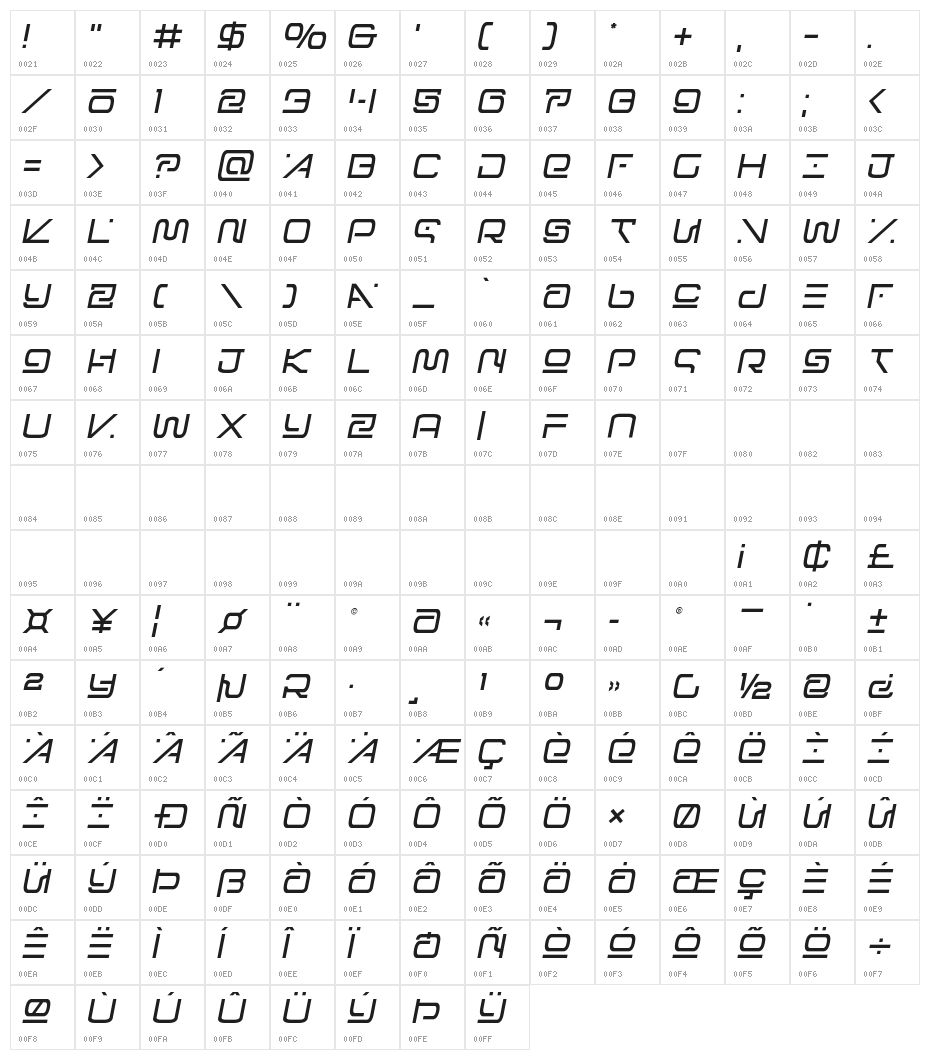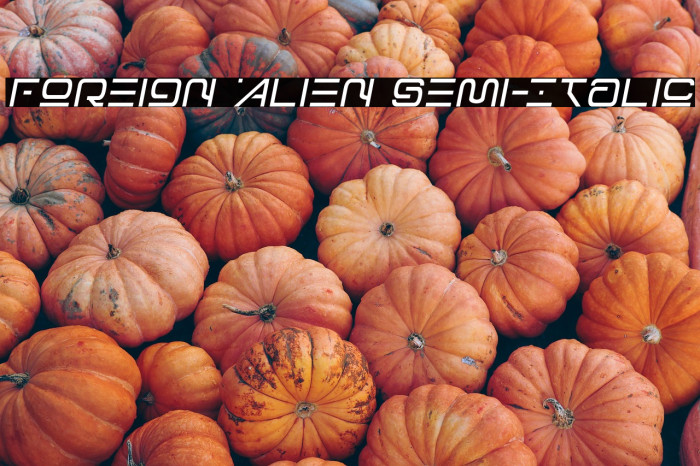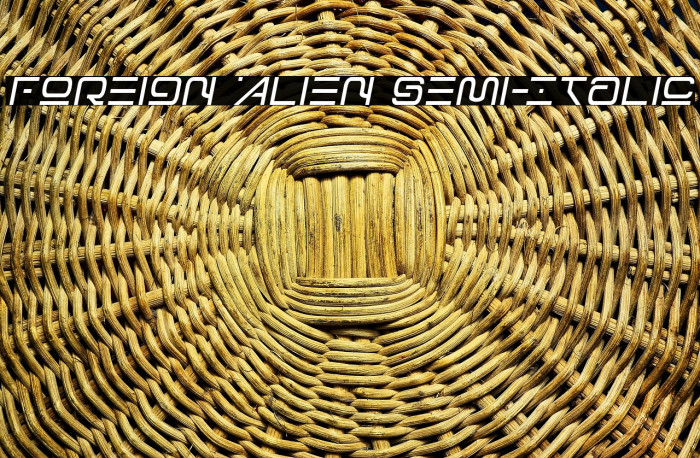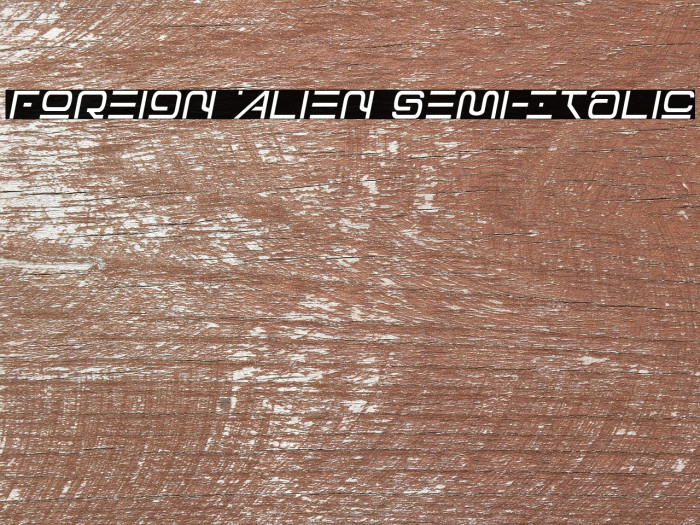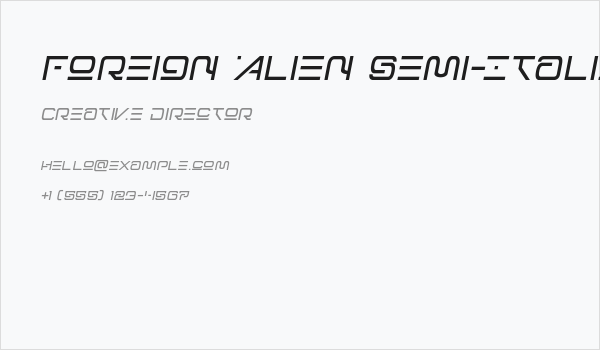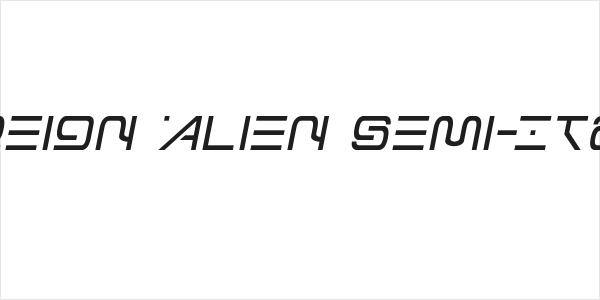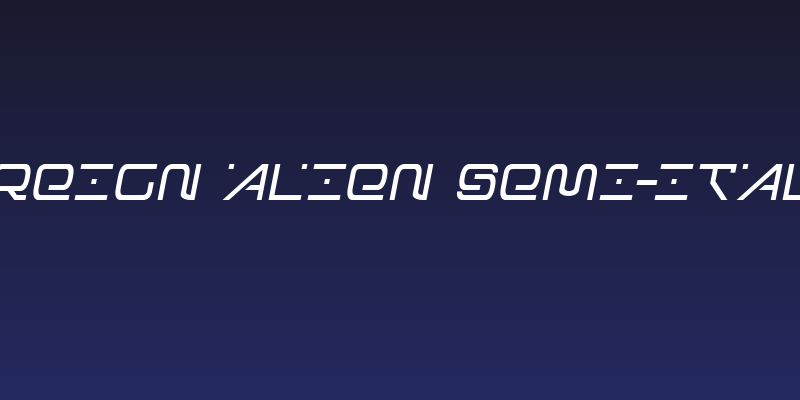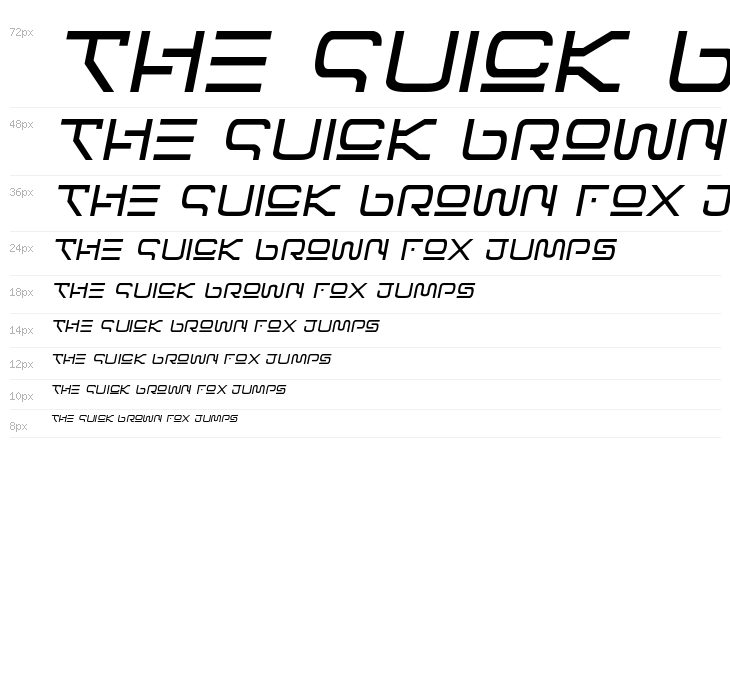
Foreign Alien Semi-Italic Font
Foreign Alien Semi-Italic Description
This font features a futuristic and alien-like design, characterized by its semi-italic style. The letters have a sleek, angular appearance with a consistent slant, giving it a dynamic and forward-moving feel. The characters are distinct with sharp edges and unique cuts, creating an otherworldly aesthetic. The numerals and special characters complement the alphabet with similar angular and geometric forms. This font stands out with its modern and unconventional look, making it suitable for creative and sci-fi themed projects.
| Proposed Projects | Ideal for sci-fi movie posters, video game titles, futuristic branding, and technology-related designs. |